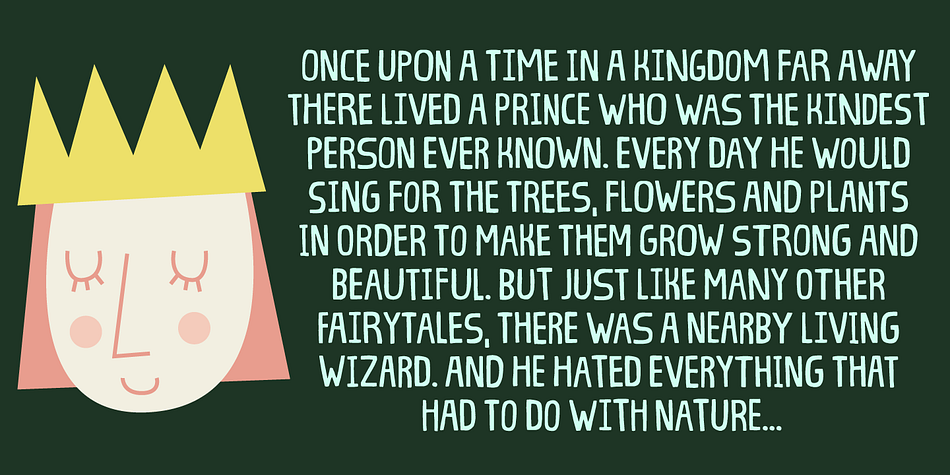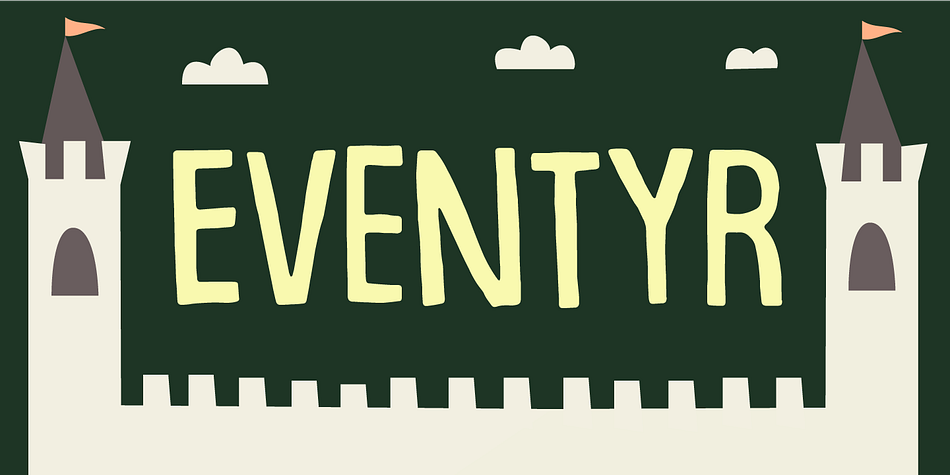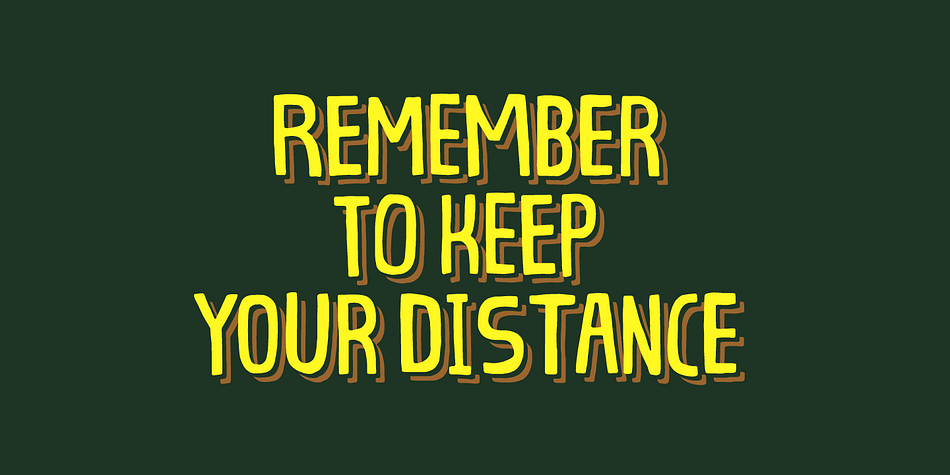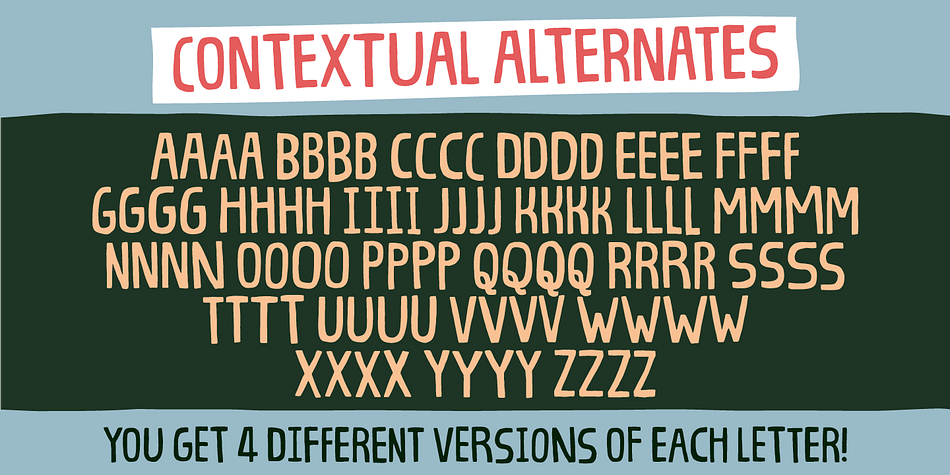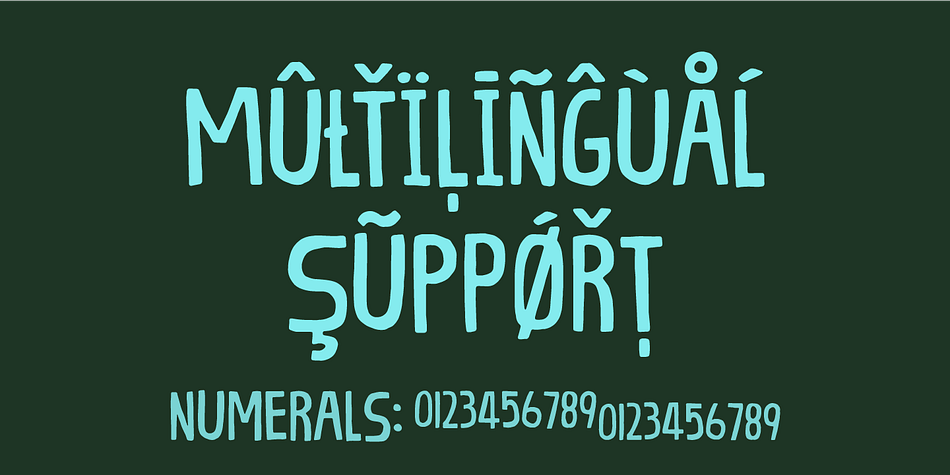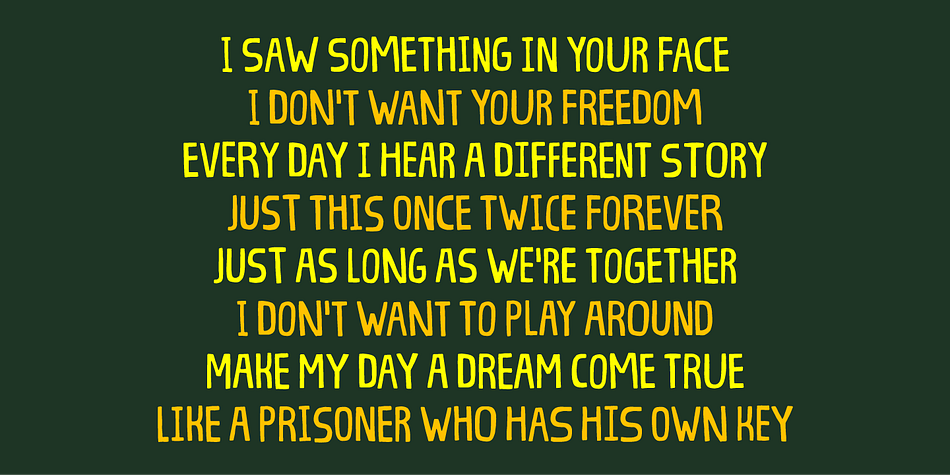
Designed by Jakob Fischer, Eventyr is a hand display and hand drawn font family. This typeface has two styles and was published by Pizzadude.dk.
Eventyr is danish and means fairytale. You may know the name of the famous danish author, HC Andersen, who was well known for his fairytales. Actually I finished this font while listening to one of his fairytales, and that inspired me to call this font Eventyr.
Most fairytales include the number 3 (3 choices, 3 wishes ... etc) but this font has the number 4 - because you have 4 slightly different versions of each letter to choose from. Enough to make your project look magical!
Of course, the font has multilingual support, because fairytales are well known all around the world! :)